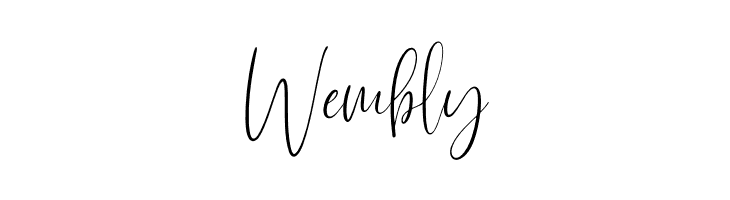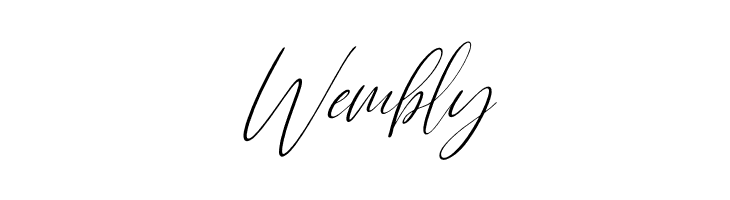
Sanflorida Italic Font
Font by Staircase Studio
A stylish, cursive handwritten script font with a refined and elegant look.
Sanflorida Font
Font by Staircase Studio
A handwritten cursive script font with a casual, flowing style.